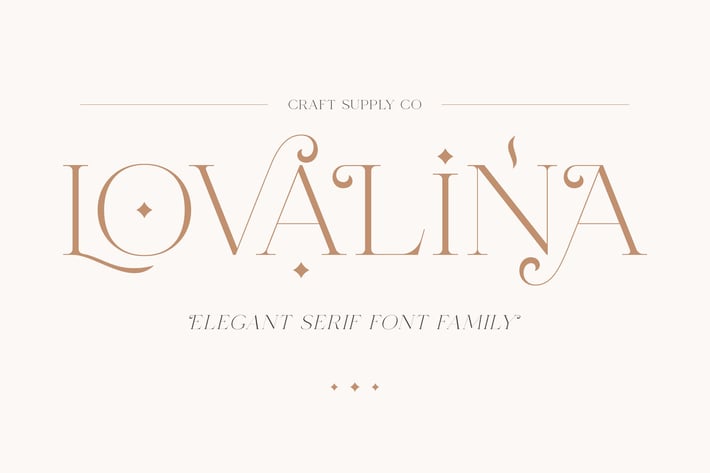
Lovalina - Elegant Serif Font Family
Lovalina - Elegant Serif Font Family is an Elegant serif font with solid font files. it is based on the compact Elegant font, by combining a variety of styles. Suitable for Logo, greeting cards, quotes, posters, branding, name card, stationary, design title, blog header, art quote, typography
Lovalina - Elegant Serif Font Family also suitable for art, modern envelope lettering or book design, craft design, any DIY project, book title, wedding font, pop vintage design, or any purpose to make our art/design project look pretty and trendy.
- All Caps
- Standard Ligatures
- Numerals & Punctuations (OpenType Standard)
- Accents (Multilingual characters) (AÀÁÂÃÄÅCÇDÐEÈÉÊËIÌÍÎÏNÑOØÒÓÔÕÖUÙÜÚÛWYÝŸỲŸÆŒßÞ)
- Stylistic Alternates (aaaaabbccddeeeefffgghhhiiiiijjjjkkkkklllllmmmmmnnnn nnnooppqqrrrrssttuuuuvvvvvwwwwxxxxxxxyyyyyzz)